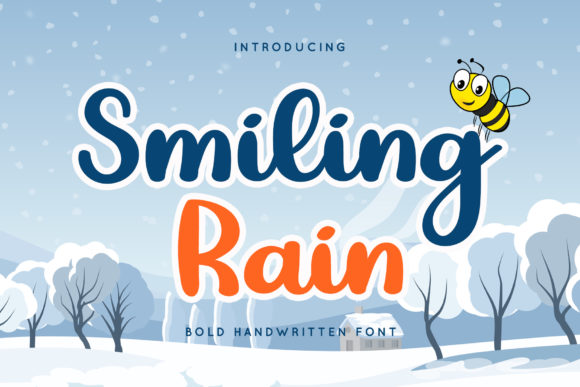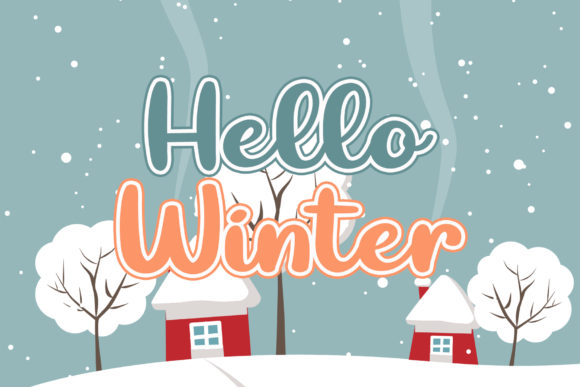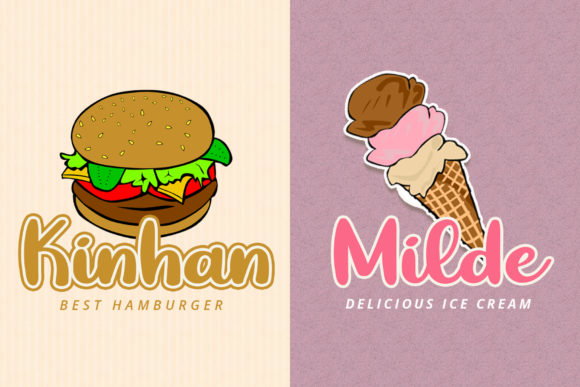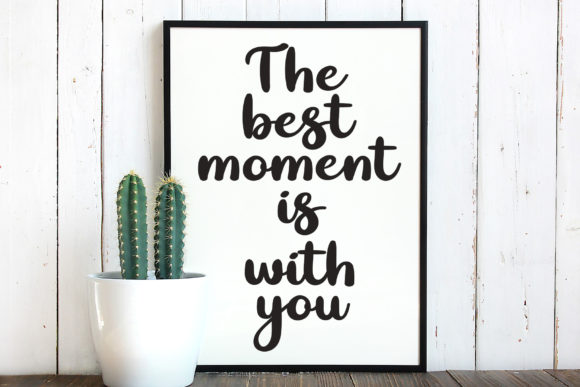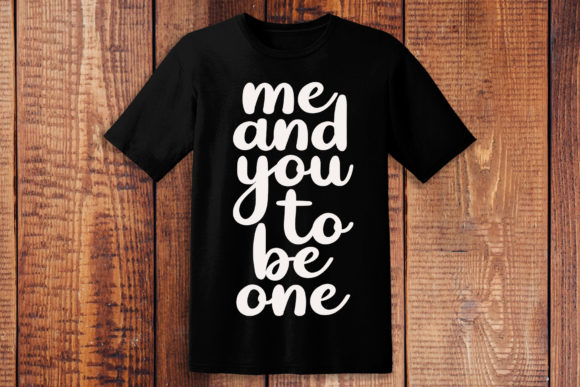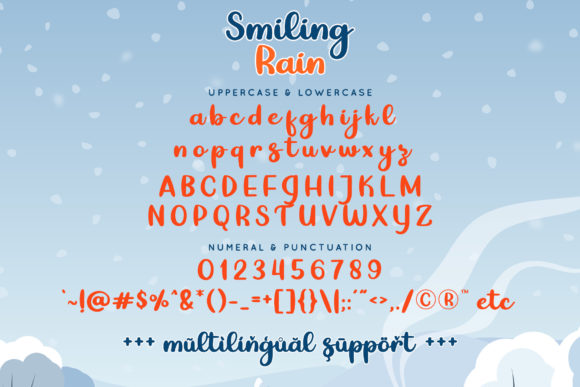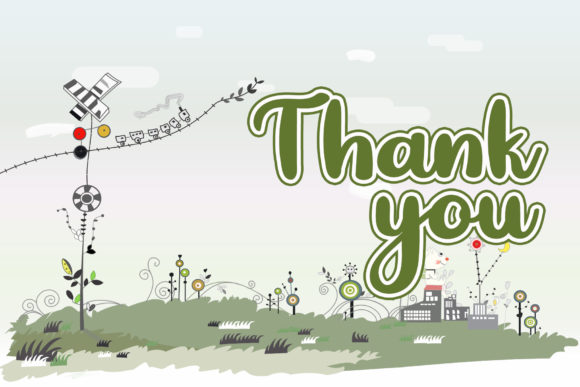
Smiling Rain Font
About Smiling Rain Font
Smiling Rain is a fresh and sweet handwritten font, featuring a natural flow. It can be used for various purposes such as logos, wedding invitations, headings, t-shirts, letterhead, signage, labels, news, posters, badges and so much more.